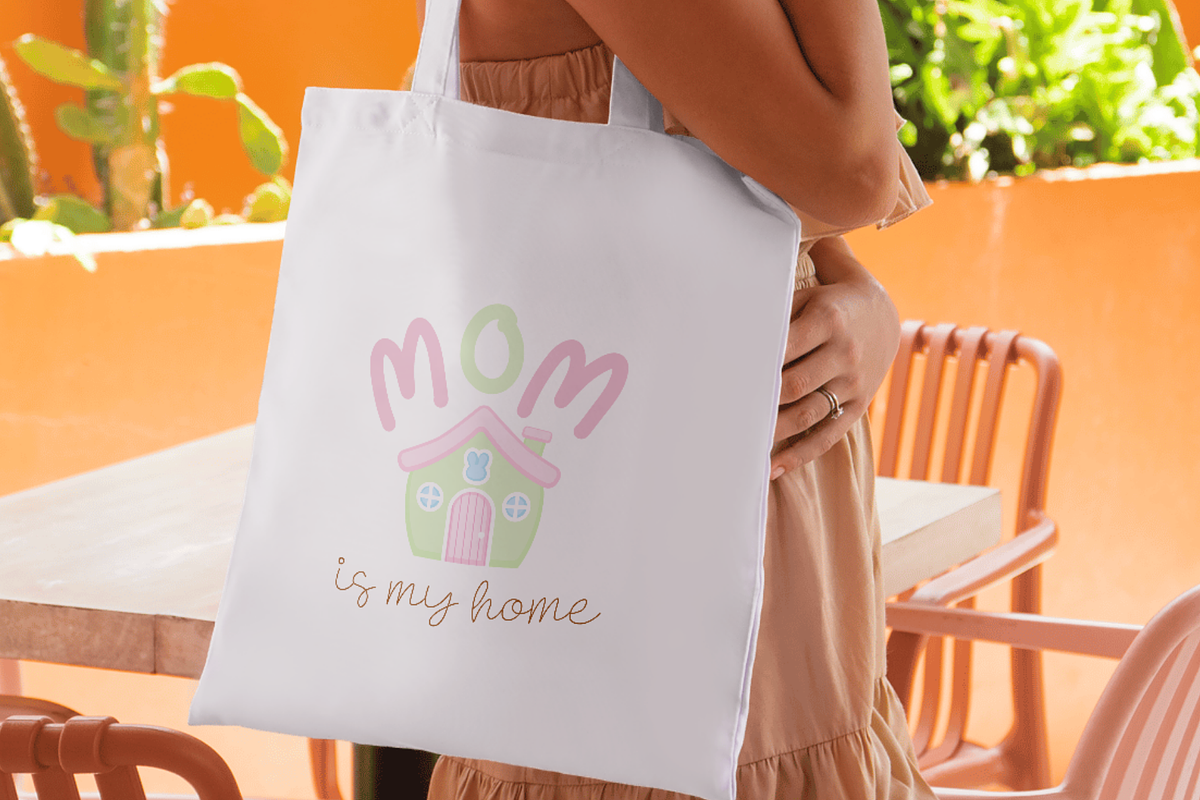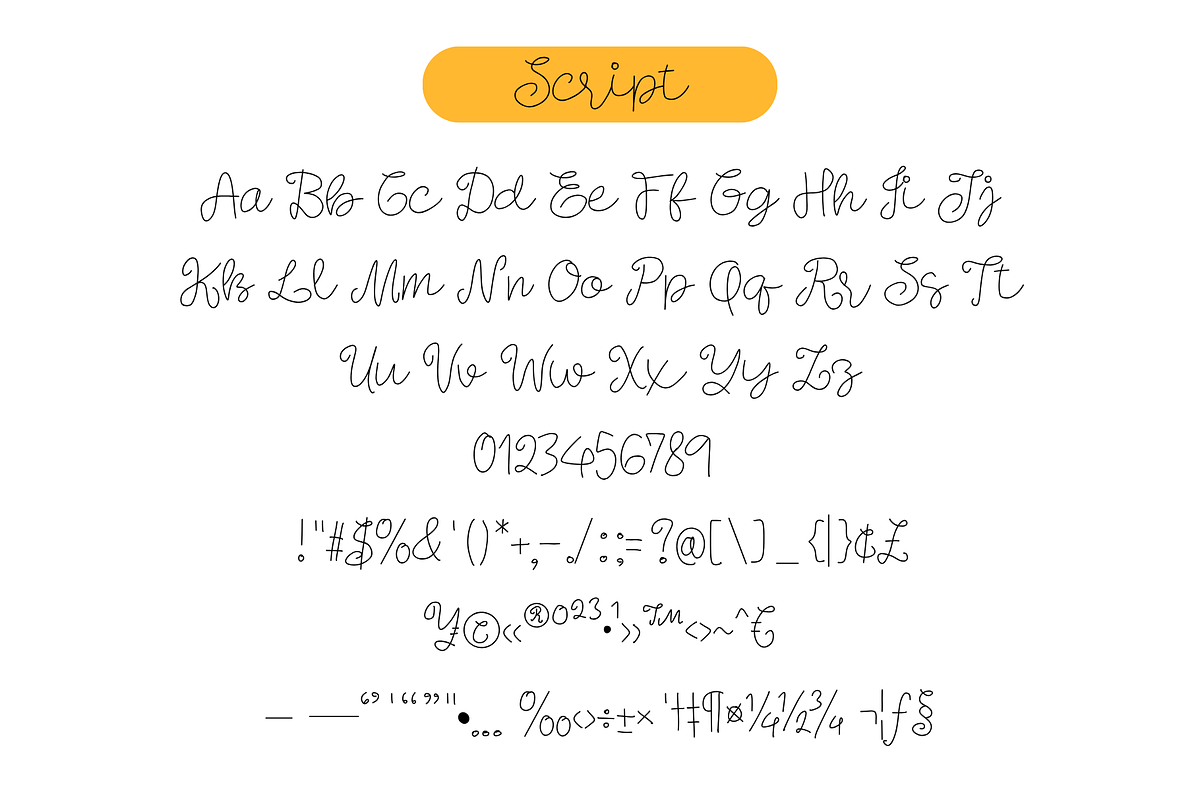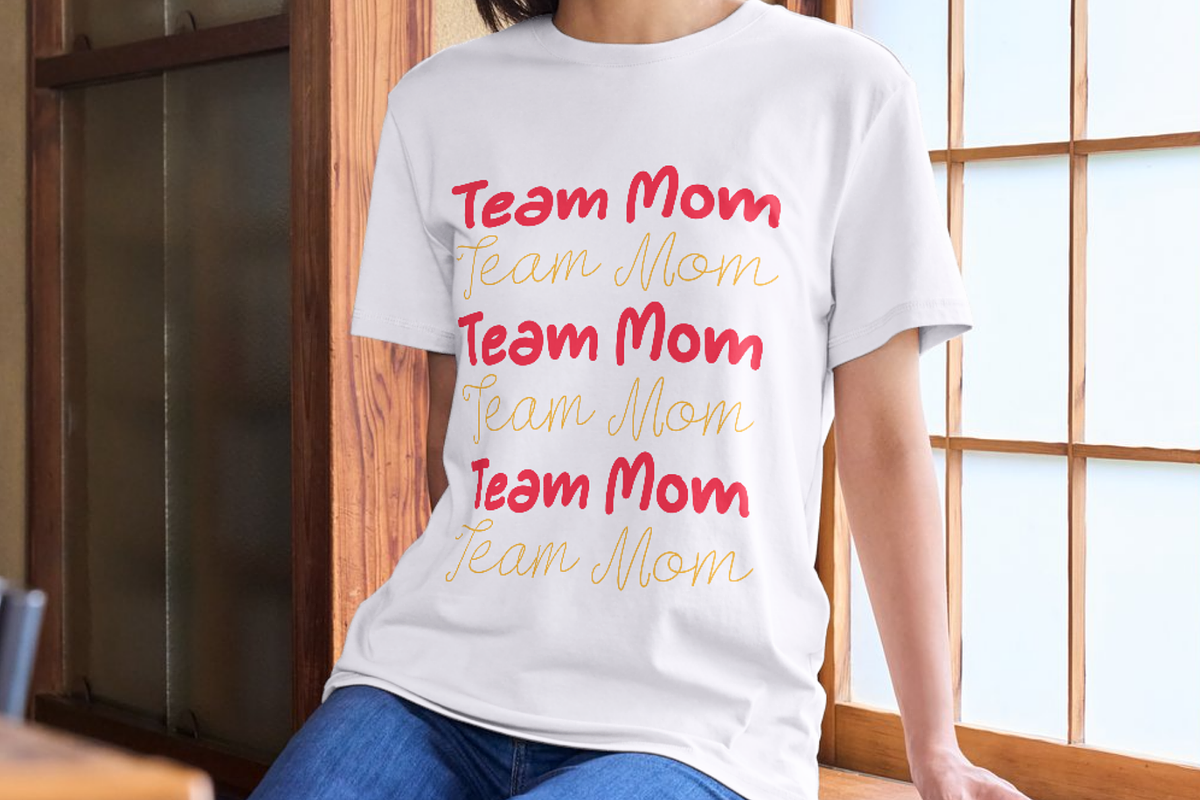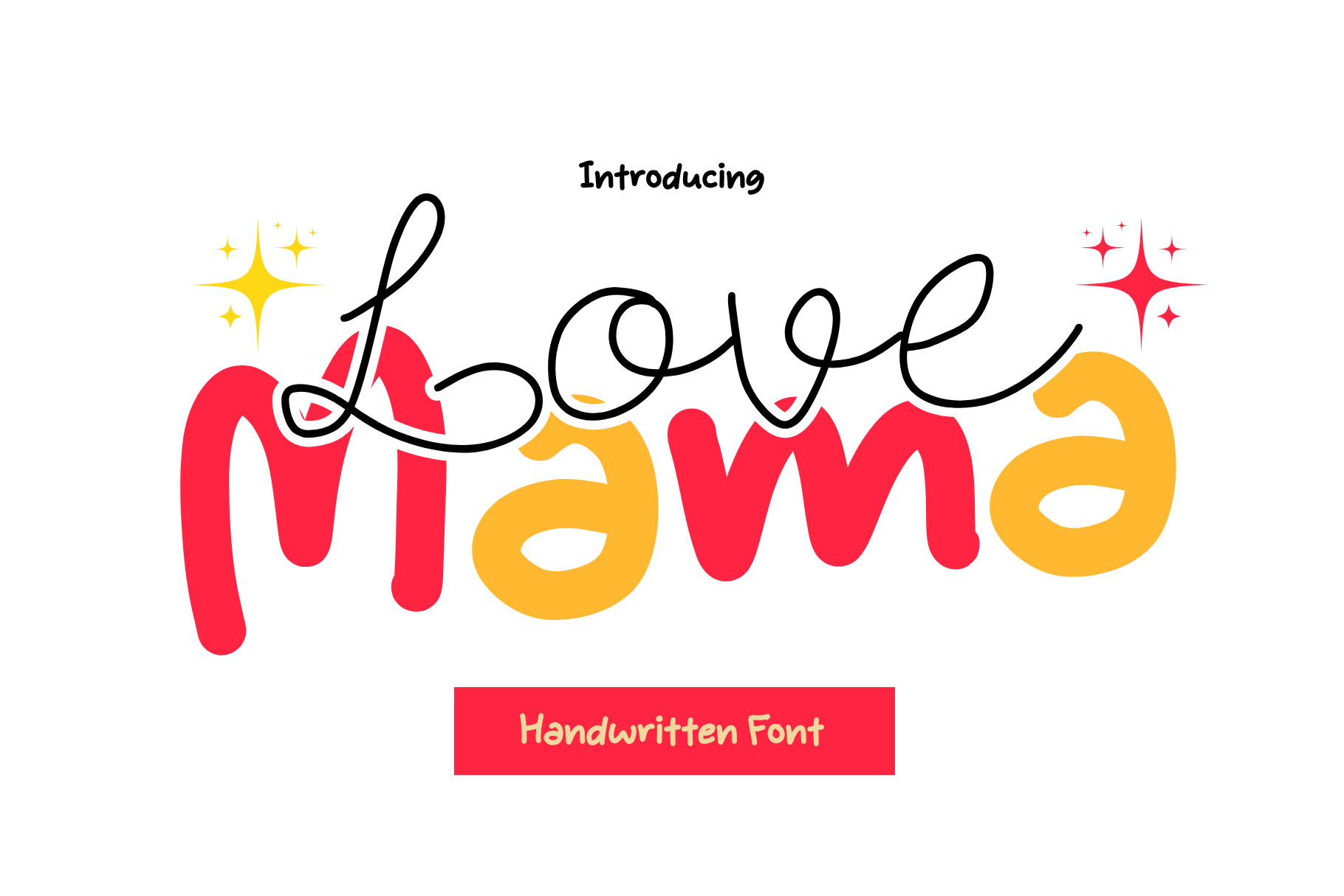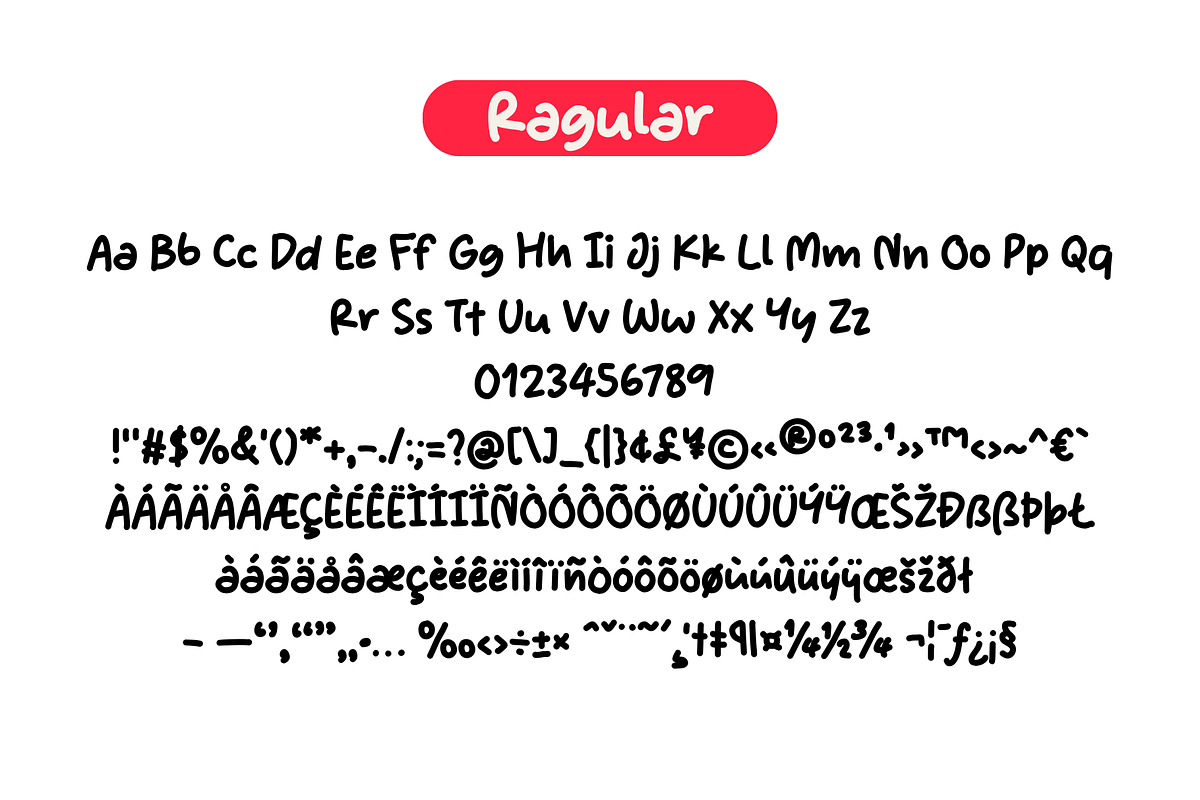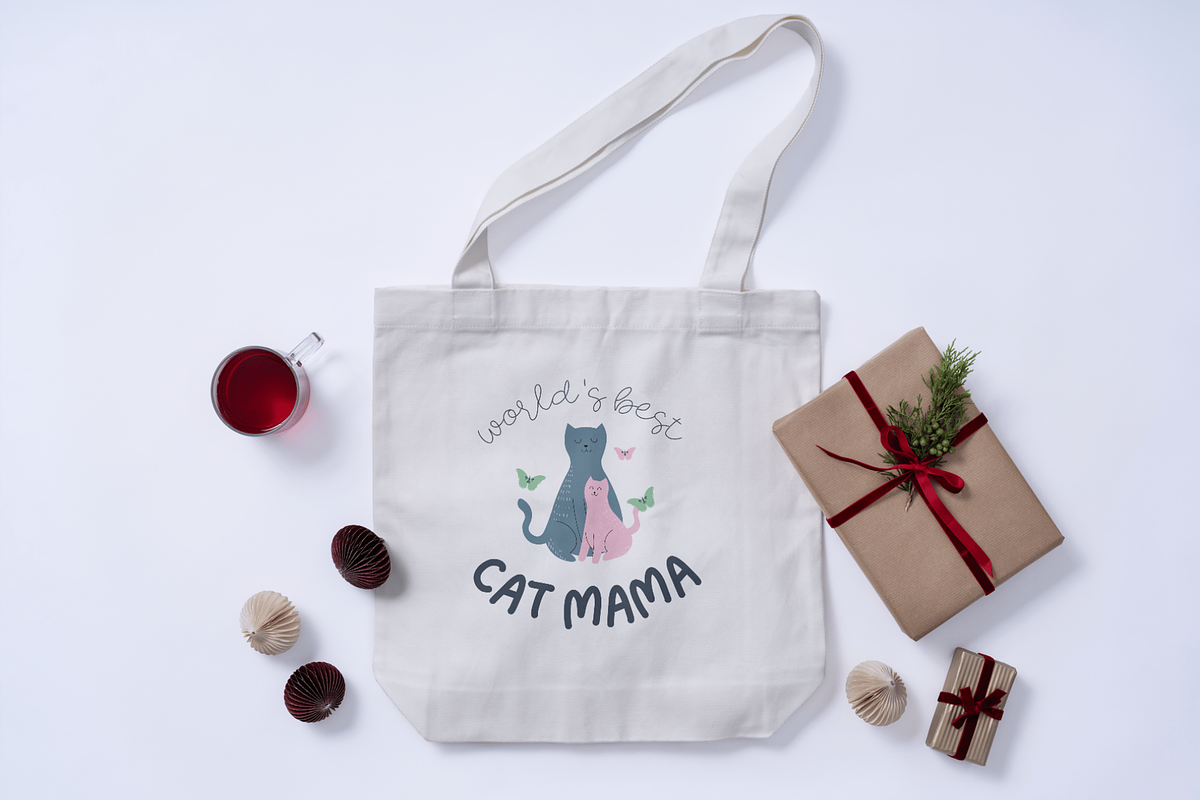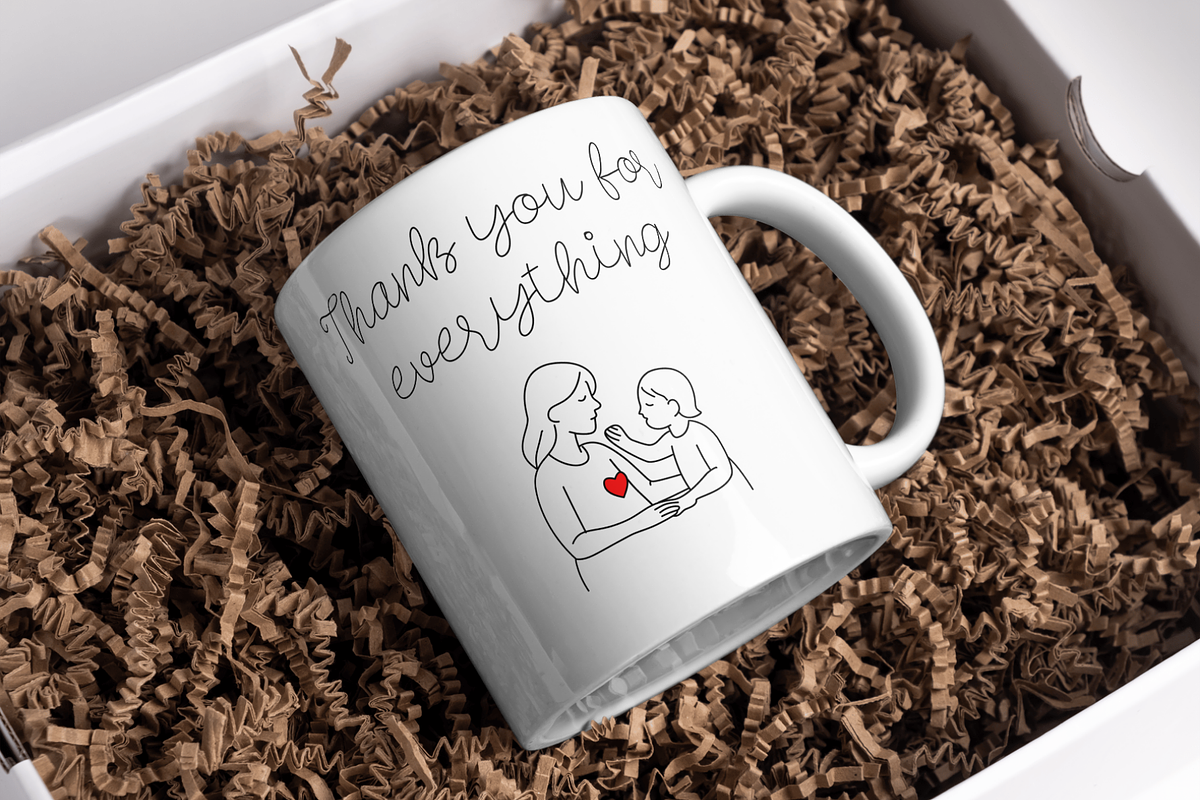
Love Mama is a charming duo font
Love Mama is a charming duo font that beautifully pairs a flowing script with a bold handwritten style. Designed to capture warmth, and a affection, this font is perfect for projects that celebrate love, family, and heartfelt moments.
The elegant script brings a soft, romantic touch, while the bold handwritten font adds a strong, friendly presence—creating a perfect balance for eye-catching designs. Whether you're crafting Mother’s Day cards, t-shirt graphics, social media posts, or branding, Love Mama delivers a natural and expressive feel that stands out effortlessly.